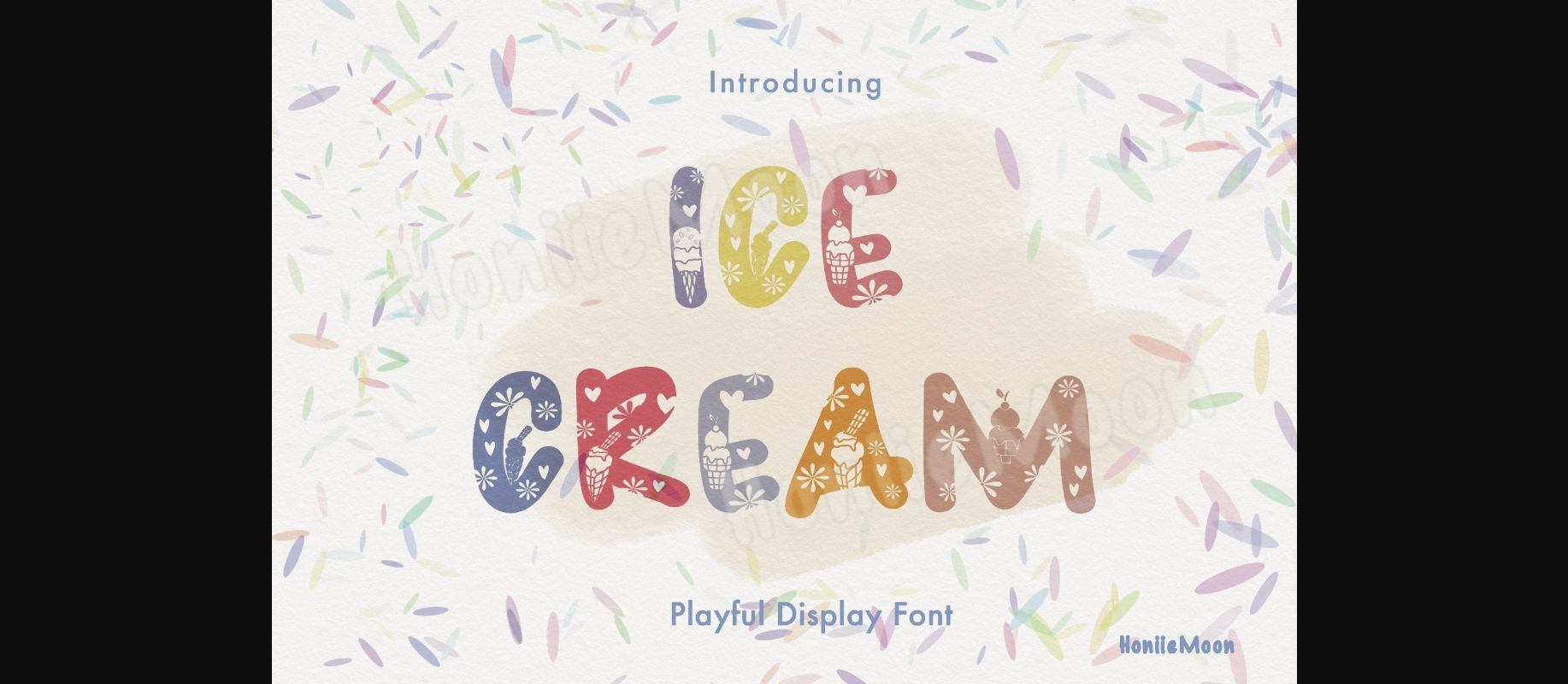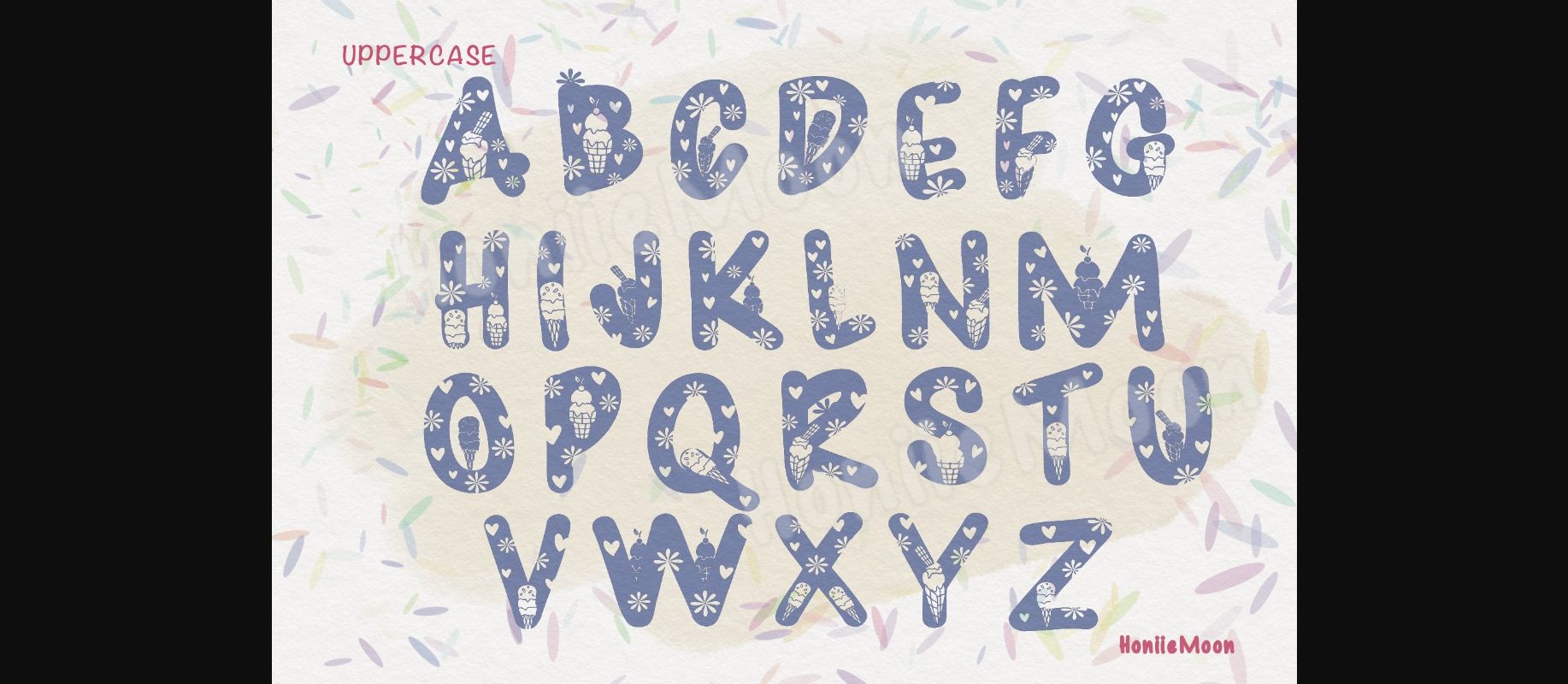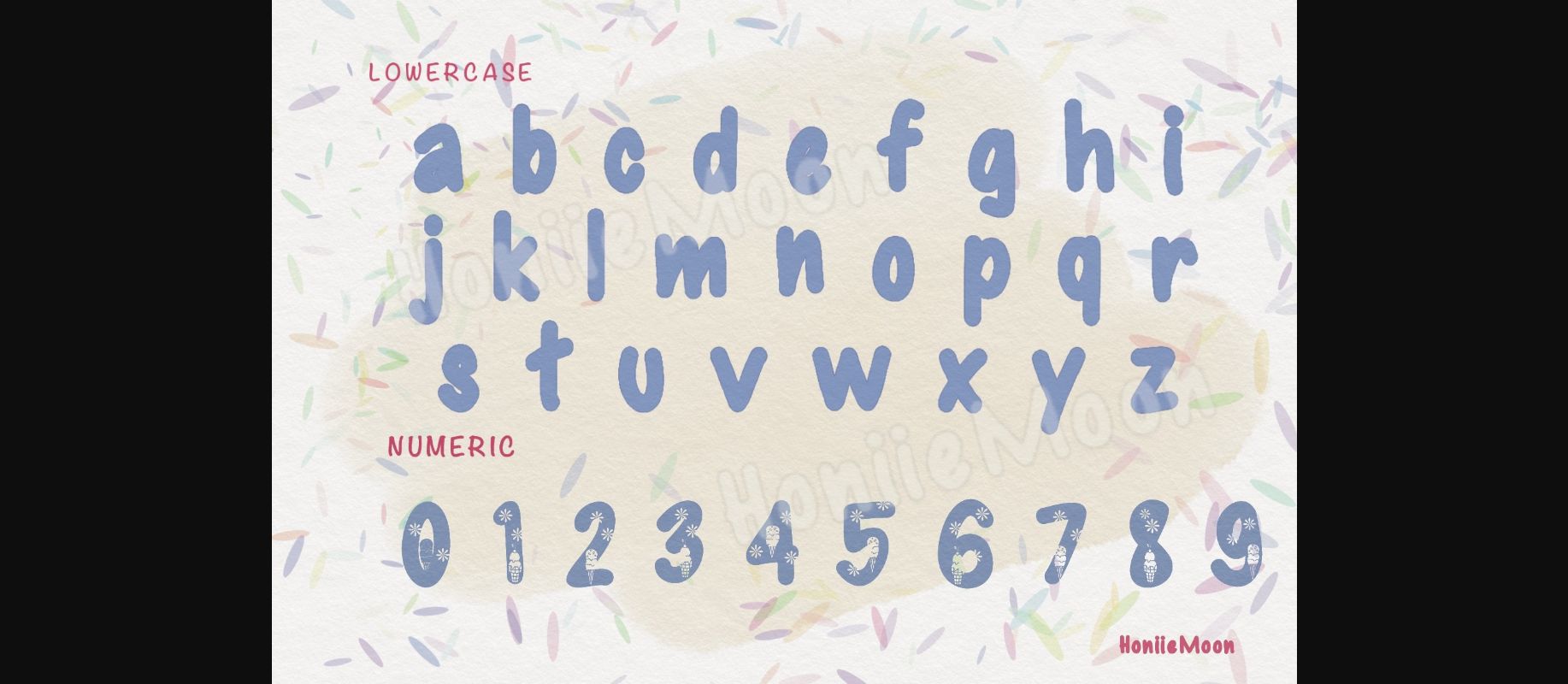
Ice Cream is a cool and fun decorative font. It looks both cute and jolly and it will enhance each of your designs. This font is PUA encoded which means you can access all glyphs and swashes with ease!